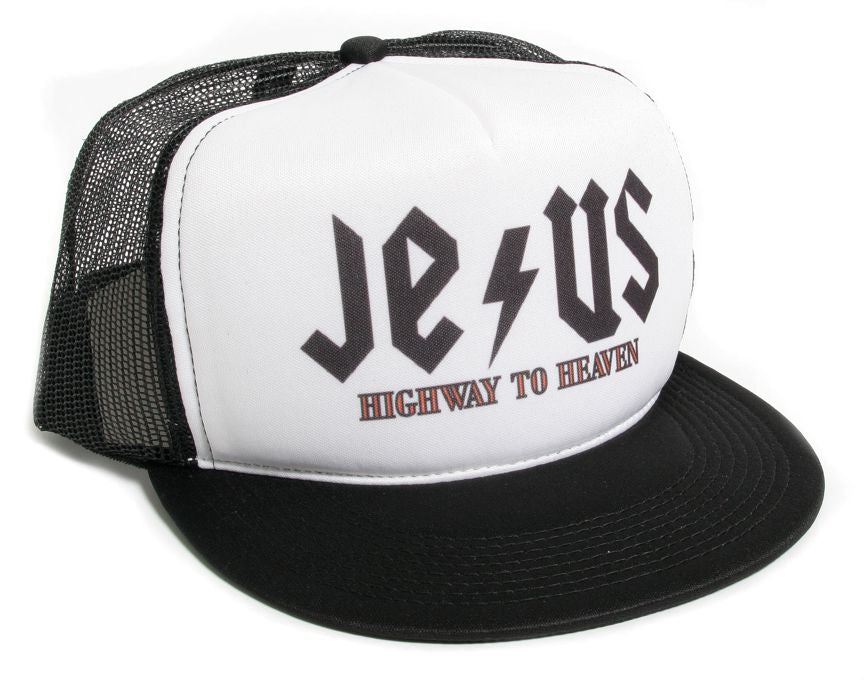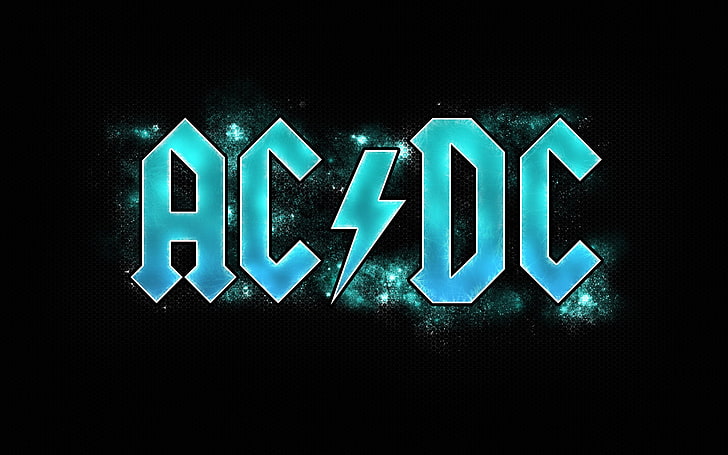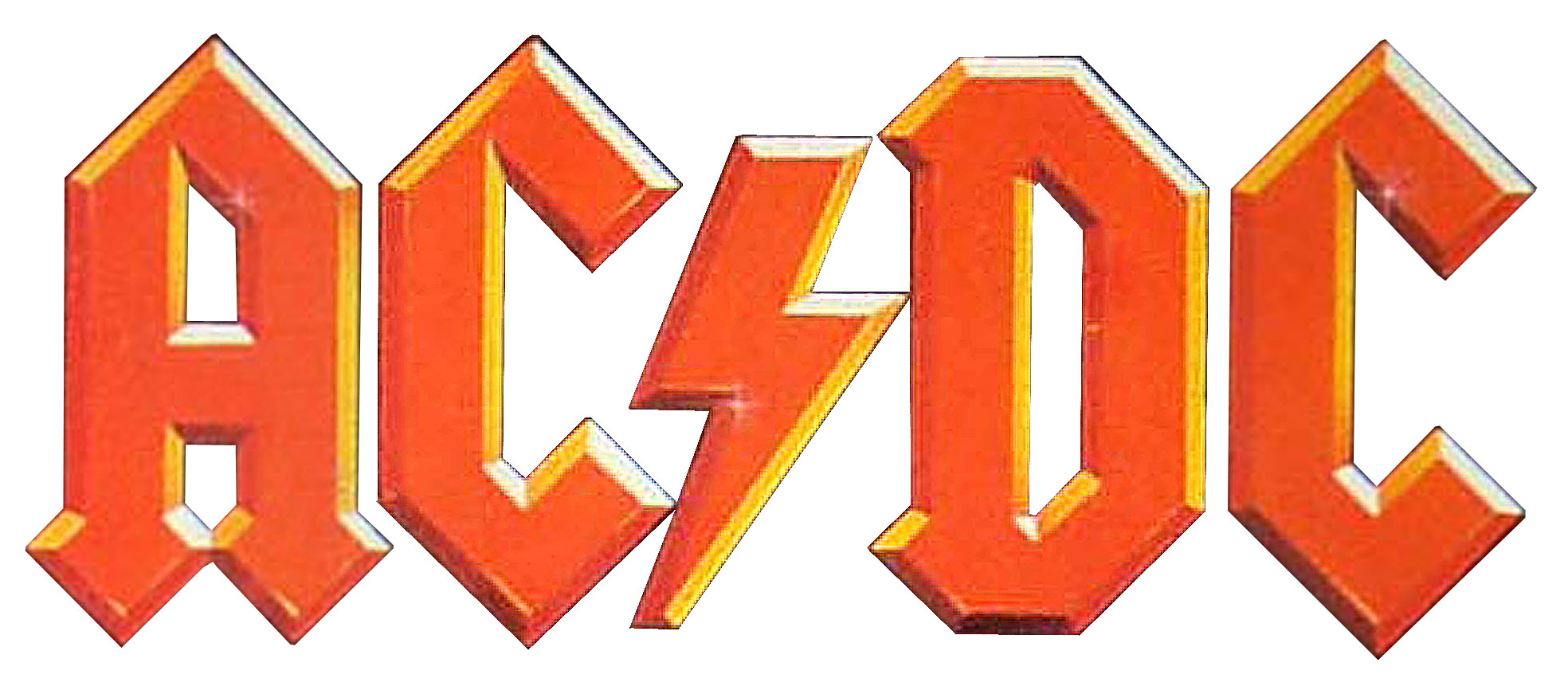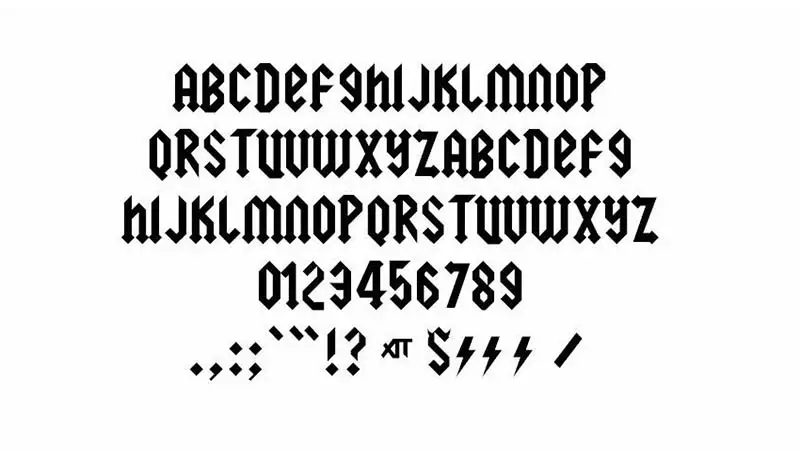
Acdc Font
Just like its members, the group changed its logo font several times But you can recreate the legendary emblem using this free AC/DC font Who wouldn’t be familiar with AC/DC’s legendary hits like Thunderstruck, Shot in the Dark, and Back in Black?.
The Australian rock band, AC/DC, uses the font Squealer This is a free font and is available here Squealer Gerard Huerta designed the bands logo in 1977 The Squealer font was later created in 1997 by Ray Larabie, President of Typodermic Fonts Inc. This font is tagged AC/DC, Larabie Fonts 2 Responses Comments 2;. The logo AC/DC uses the Squealer font click here to download AC/DC logo font About fonts Font by Typodermic Fonts.
“Squealer” is the font used in the AC/DC logo This font is designed by Typodermic Fonts You can use the font in your personal and commercial projects. What font does AC/DC use?. The above is probably the first logo for AC/DC, the Australian hard rock band formed in November 1973 Set in a geometric stencil font with the lightning bolt in the center, the logo was first seen on their debut album, High Voltage (Australian) and then on the second album TNT A font that is similar to the logo is Glaser Stencil.
AC/DC Font Family Squealer Font is the typeface being using in the logo of the famous Australian rock band AC/DC Designed by Raymond Larabie for type foundry Typodermic Fonts On the other hand, another font family that was used on their debut album High Voltage is Glaser Stencil Font.